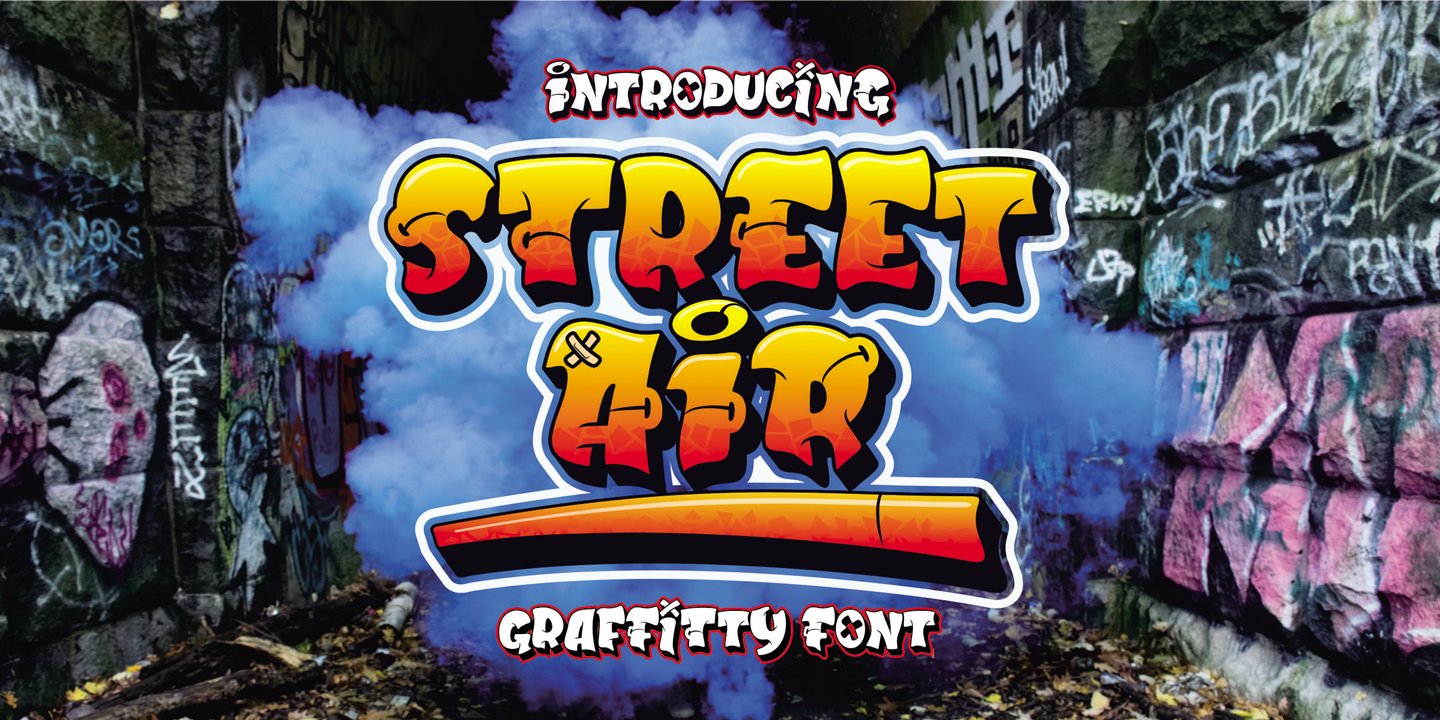
This dynamic display font is perfect for urban streetwear branding, skateboard graphics, hip-hop album covers, graffiti-inspired designs, street art projects, youth culture campaigns, extreme sports marketing, and fresh design projects that capture the raw energy of street culture and urban freedom.
Street Air Font is exciting because it embodies the breathless energy of street culture with its flowing letterforms that seem to move with the rhythm of city life and underground creativity. The font delivers authentic urban vibes that resonate with street-smart audiences.
The Street Air Font family includes regular and outlined versions with street-themed decorative elements, urban symbols, and graffiti-inspired ornaments, giving designers powerful tools for creating fresh typography that owns the streets.
Ready to breathe life into street culture? Street Air Font Free Download offers designers flowing letterforms that pulse with urban energy and street-smart authenticity. This dynamic typeface combines street aesthetics with creative functionality, making it ideal for streetwear brands, urban music labels, and youth-focused campaigns. Whether you're designing skateboard graphics, street fashion advertisements, or underground event promotions, this font delivers genuine street credibility. The dynamically crafted characters feature urban flow while maintaining excellent readability across street applications. Perfect for businesses in streetwear, urban music, extreme sports, and youth culture that celebrate creative expression and street authenticity. The font's street construction creates memorable brand recognition that resonates with urban communities worldwide. Each letter showcases deliberate movement that mirrors the unstoppable flow of street culture. Download today and inject fresh urban energy into your creative projects with this premium display font that transforms ordinary text into extraordinary expressions of street freedom and the authentic spirit of Street Air Font Free Download culture.